Farmhouse fonts bring a rustic charm to any design project, whether you’re creating farmhouse signs, product designs, or wall displays. With unlimited font downloads available on platforms like Envato Elements, you can find great font options that suit your farmhouse style. These fonts include a mix of script, serif, calligraphy, and display fonts that add detail and character to your designs.
Best Free Farmhouse Fonts
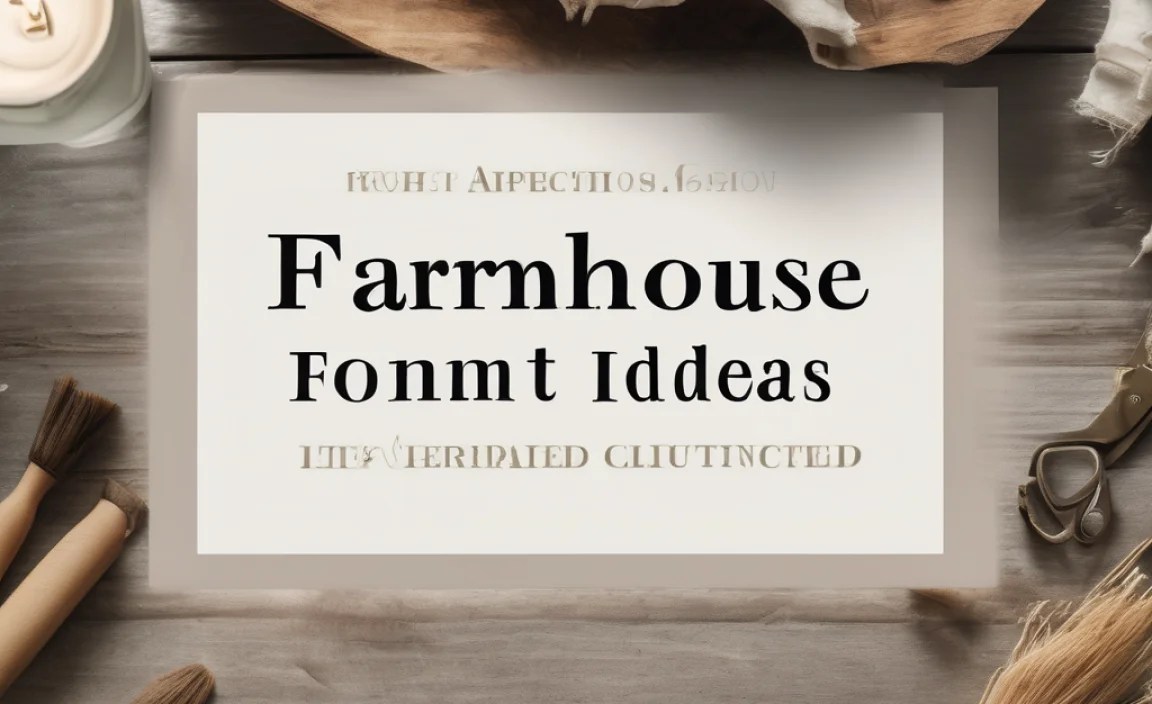
If you’re looking for a free farmhouse font, several high-quality options are available. Many designers, including KA Designs, offer rustic fonts that mimic handwritten script and retro fonts. Free fonts often come with stylistic alternates, making them versatile for different branding and signage needs.
Some of the best free farmhouse fonts include:
- Rustic Farmhouse – A great font with a vintage touch for posters and advertisements.
- Homestead Serif – A serif font with a clean yet rustic texture, perfect for labels and recipe ratings.
- Handmade Script – A handwritten font ideal for greeting cards and stationery.
Font Styles & Pairing Options
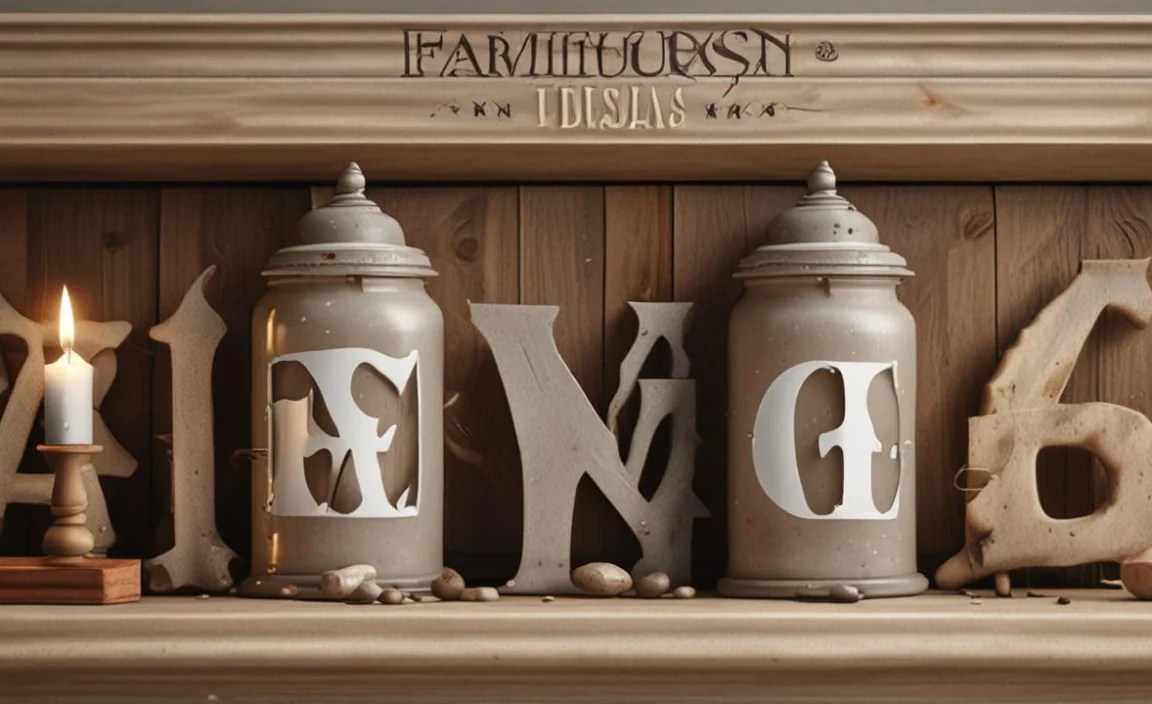
When choosing a farmhouse font, it’s essential to consider its style and pairing options. A script font pairs beautifully with a serif font, balancing elegance with readability. Some classic farmhouse-style pairings include:
- Bold uppercase rustic font + delicate script font – Great for logos and signage.
- Serif display fonts + handwritten font – Ideal for product designs and farmhouse signs.
- Calligraphy fonts + clean sans-serif font – Works well for branding and advertisements.
Where to Use Farmhouse Fonts
Farmhouse fonts add a warm and vintage feel to various projects. Here are some ways to use them effectively:
- Farmhouse signs – Perfect for DIY wooden signs and wall decor.
- Branding and logo design – Gives businesses a handcrafted, nostalgic look.
- Greeting cards & stationery – Adds a taste handwriting feel to invitations and labels.
- Posters & advertisements – Enhances rustic-themed marketing materials.
- Photography & illustrations – Complements rustic texture in digital and printed media.
Finding The Right Farmhouse Font
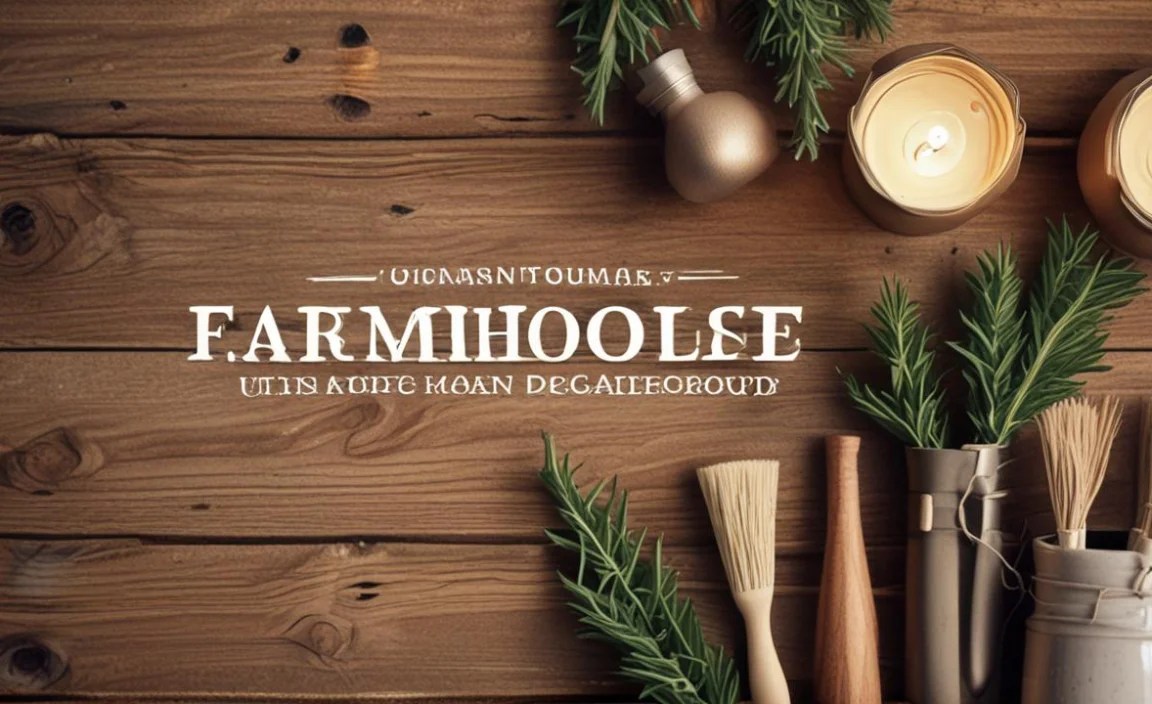
A good character map helps select fonts that align with your design ideas. Look for fonts that offer stylistic alternates to provide flexibility in design. Envato Elements and other font marketplaces provide a vast selection of fonts, allowing you to explore different farmhouse styles and character details.
What Is A Farmhouse Font?
A farmhouse font is a rustic, vintage-style font often used in farmhouse signs, branding, and DIY projects. It can be a script, serif, or handwritten font.
How Do I Pair Farmhouse Fonts For My Project?
Pair a bold uppercase rustic font with a delicate script font for contrast. Serif and handwritten fonts also create a balanced, stylish look.
What Are Some Common Uses For Farmhouse Fonts?
They are ideal for farmhouse signs, product labels, greeting cards, posters, branding, and advertisements.